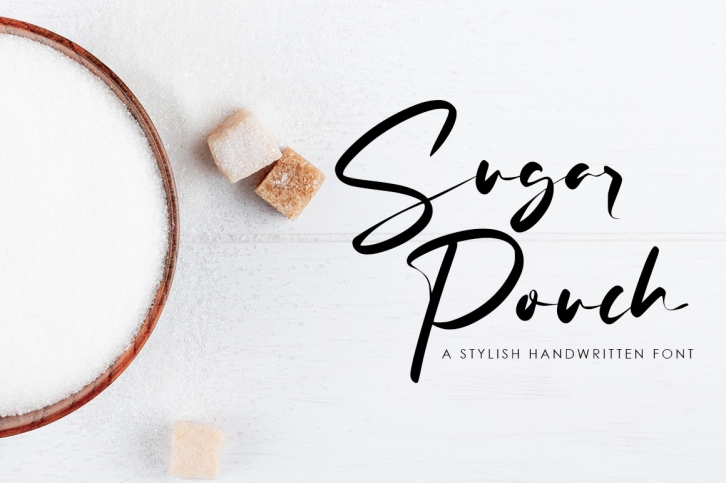
Sugar Pouch is a trendy and stylish script font. This font is PUA encoded which means you can access all glyphs and swashes with ease! Use this font for your designs and explore its endless possibilities.